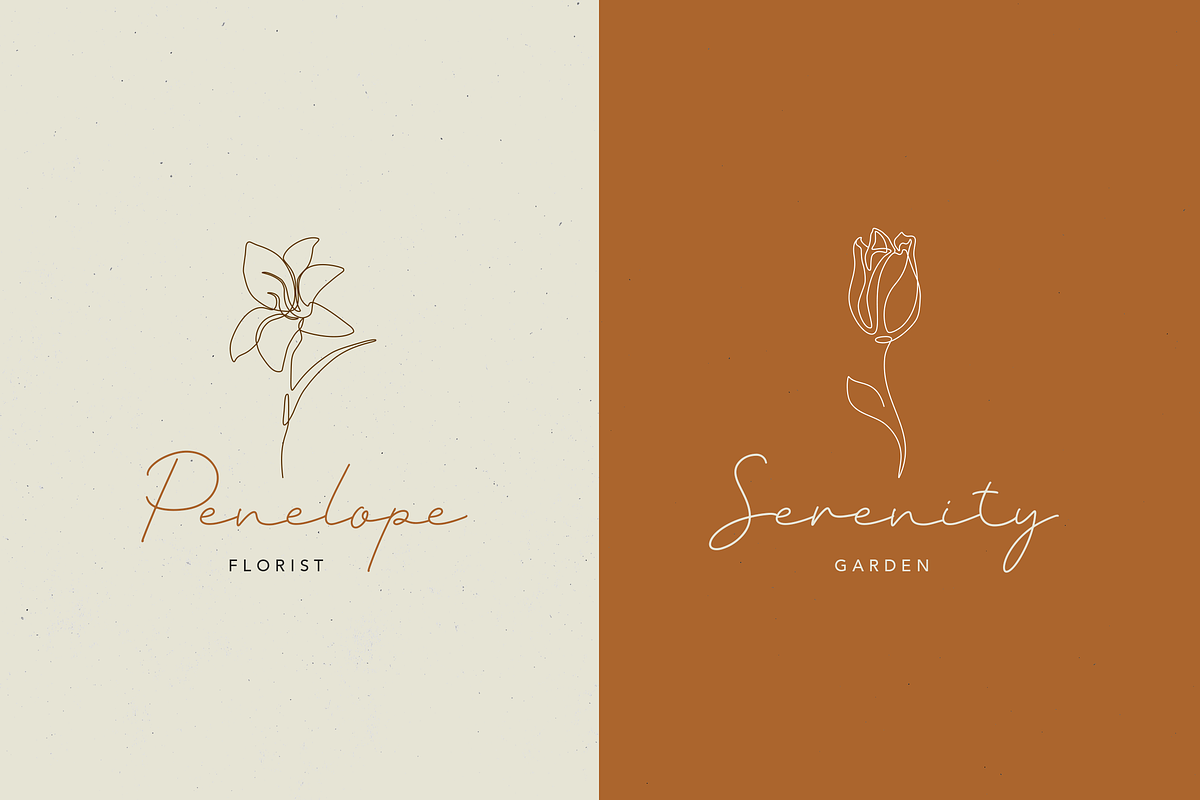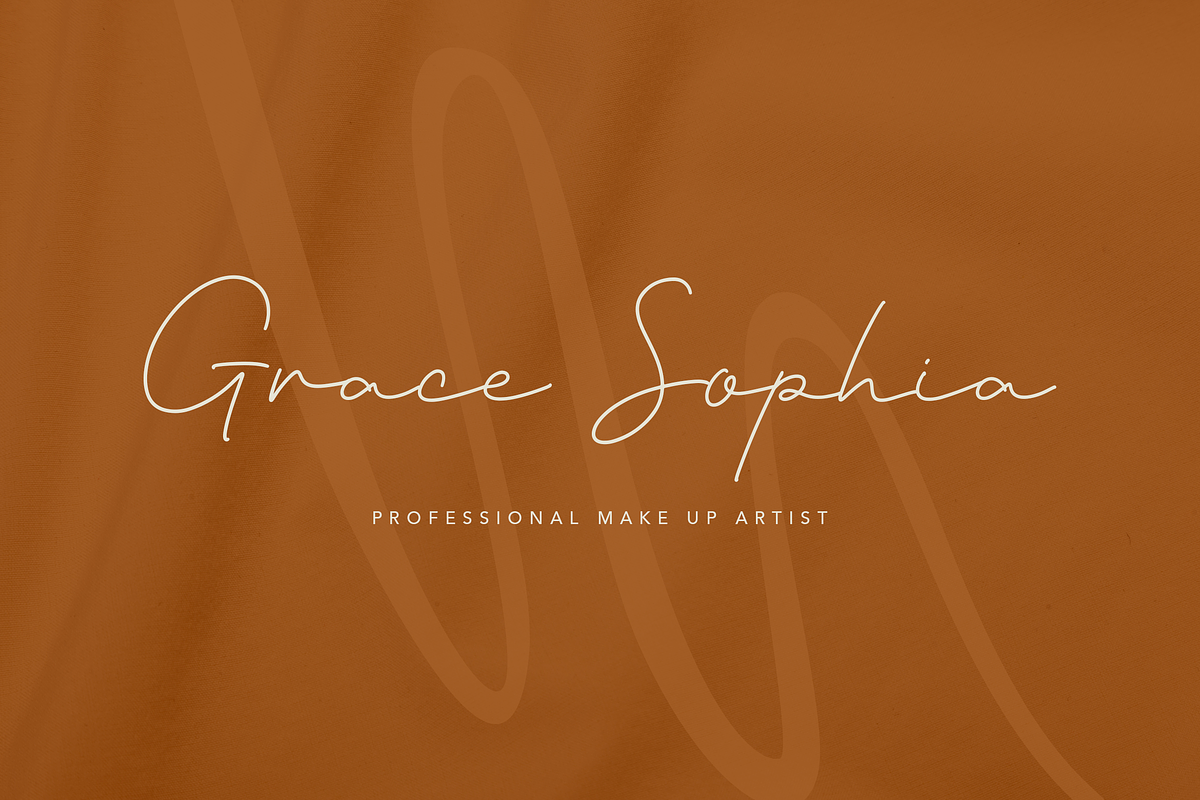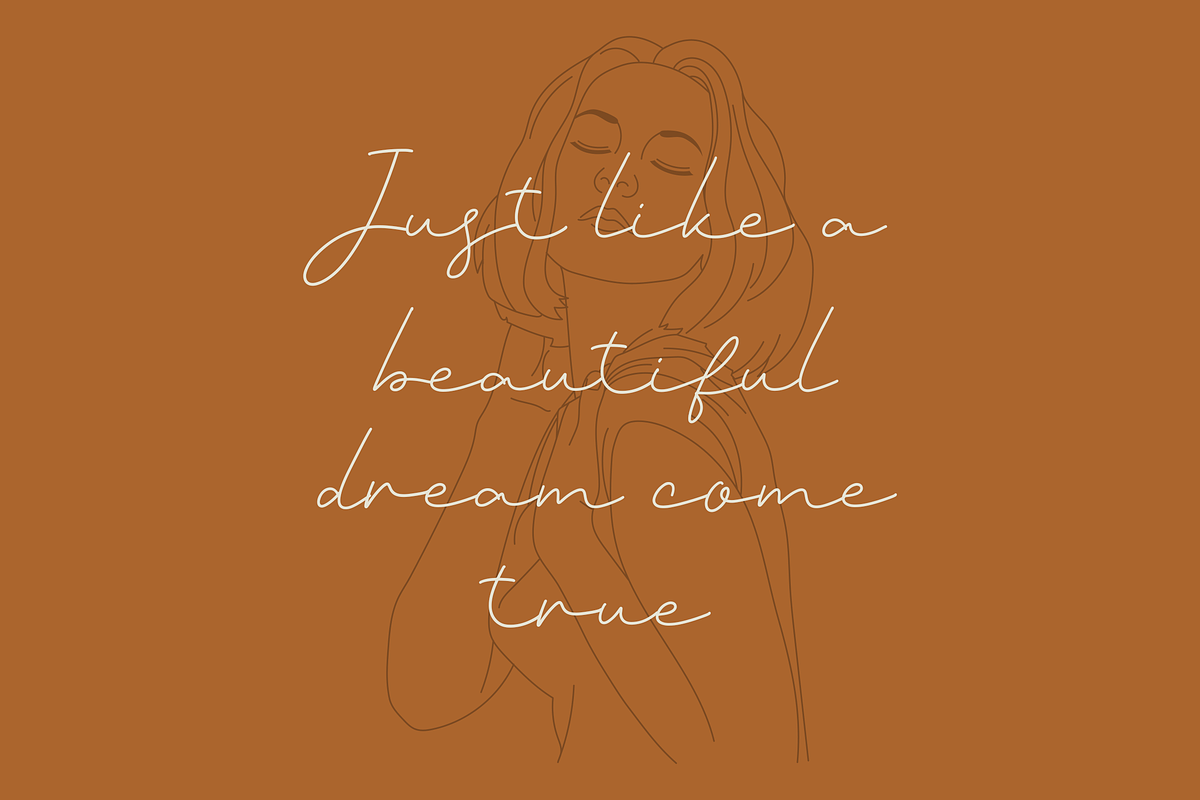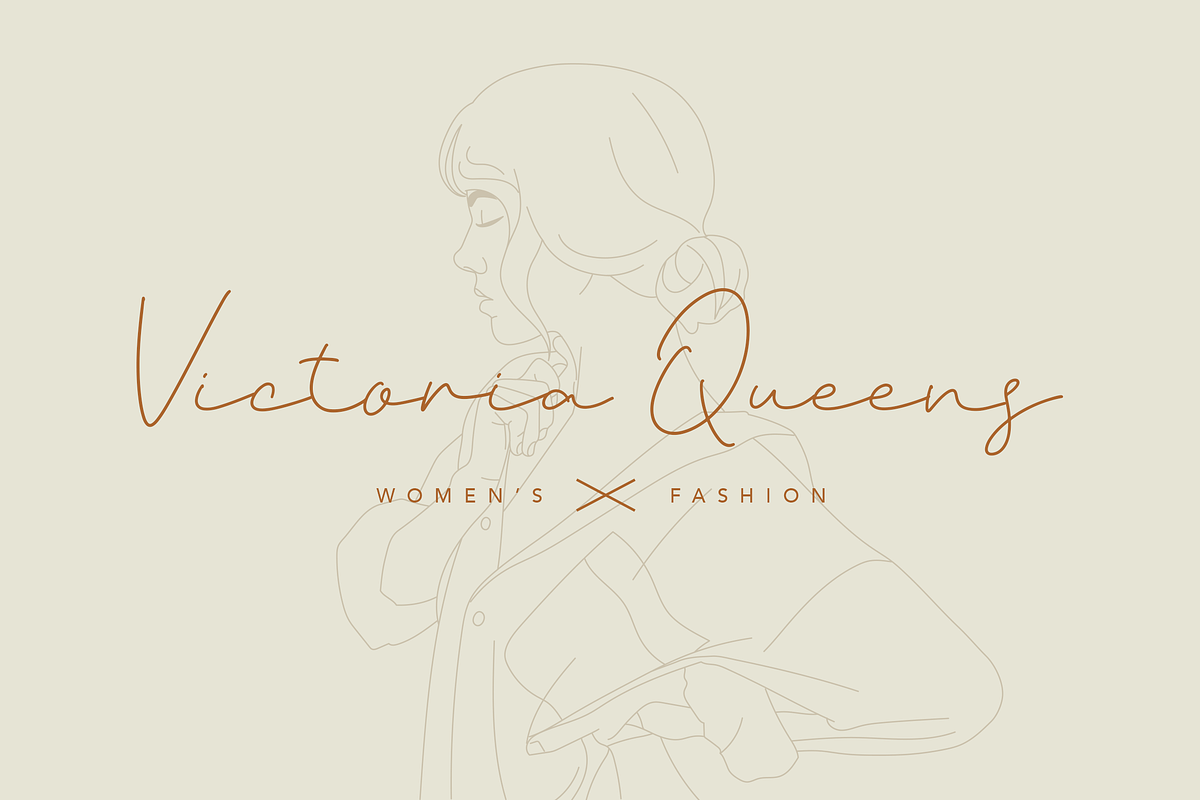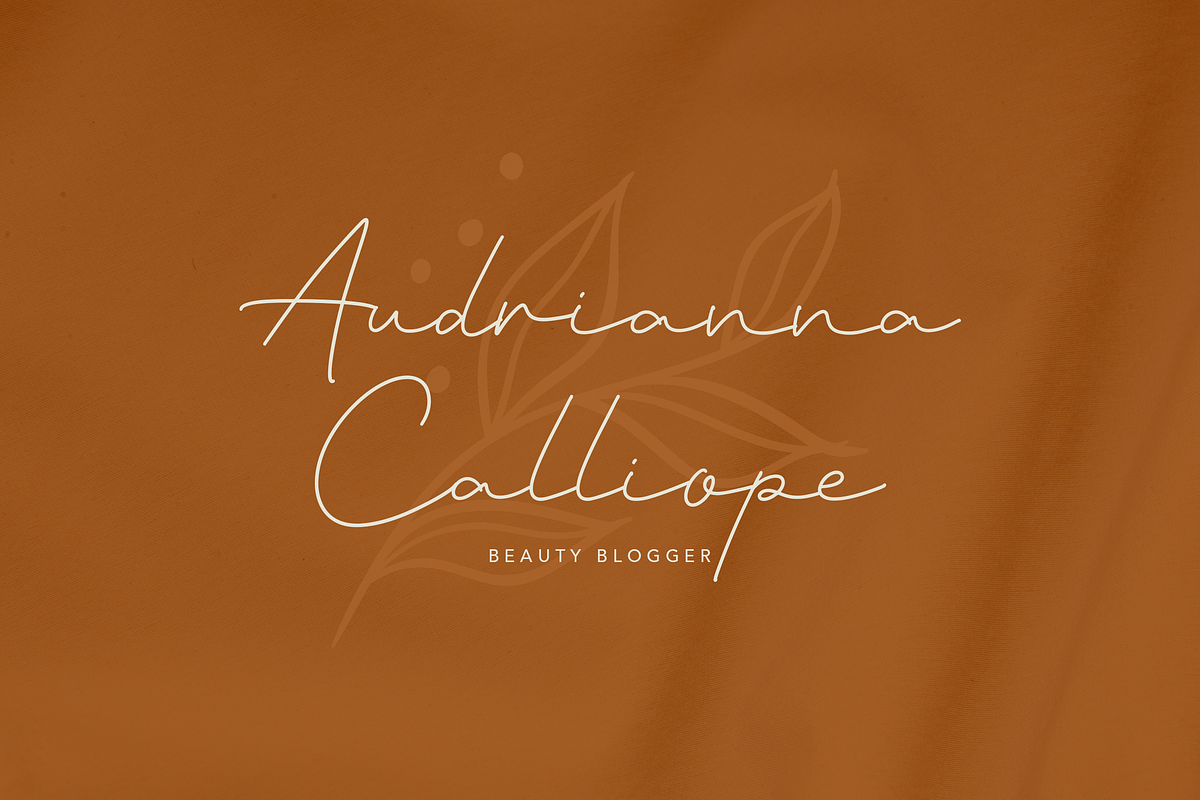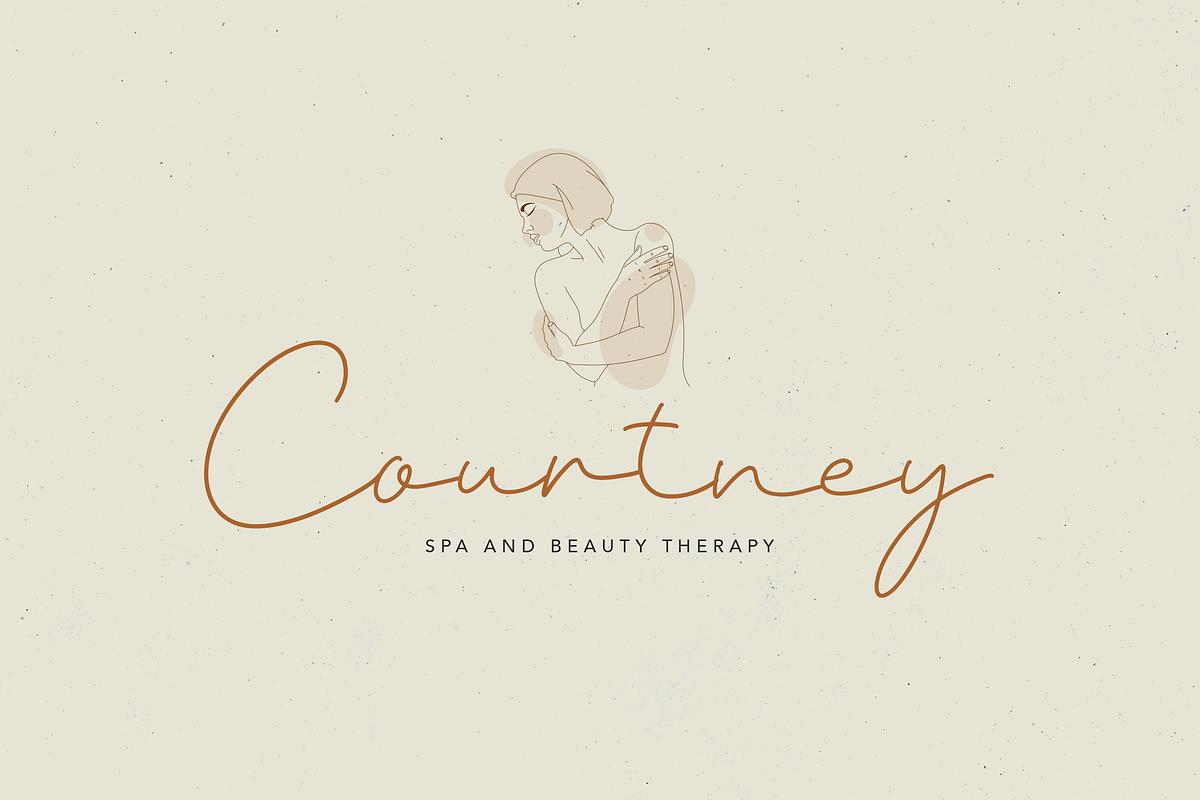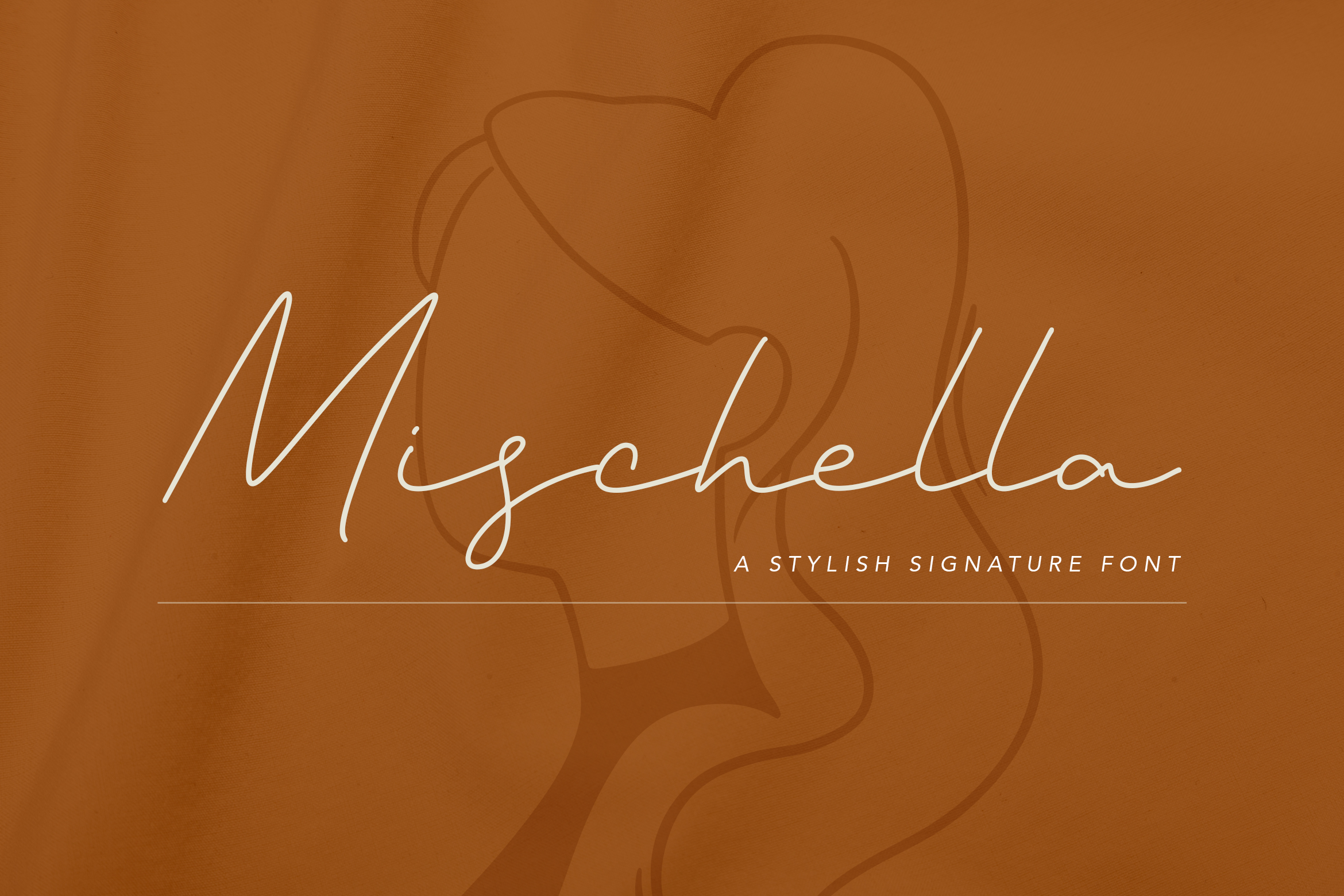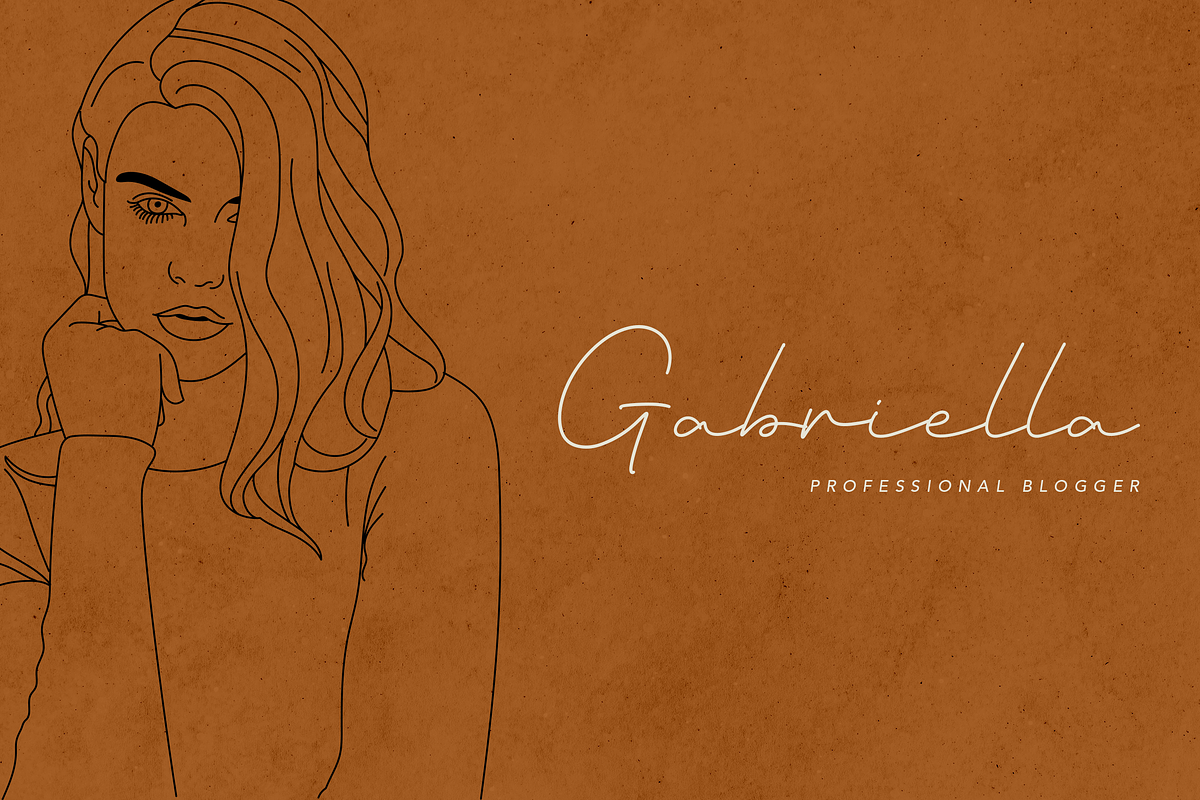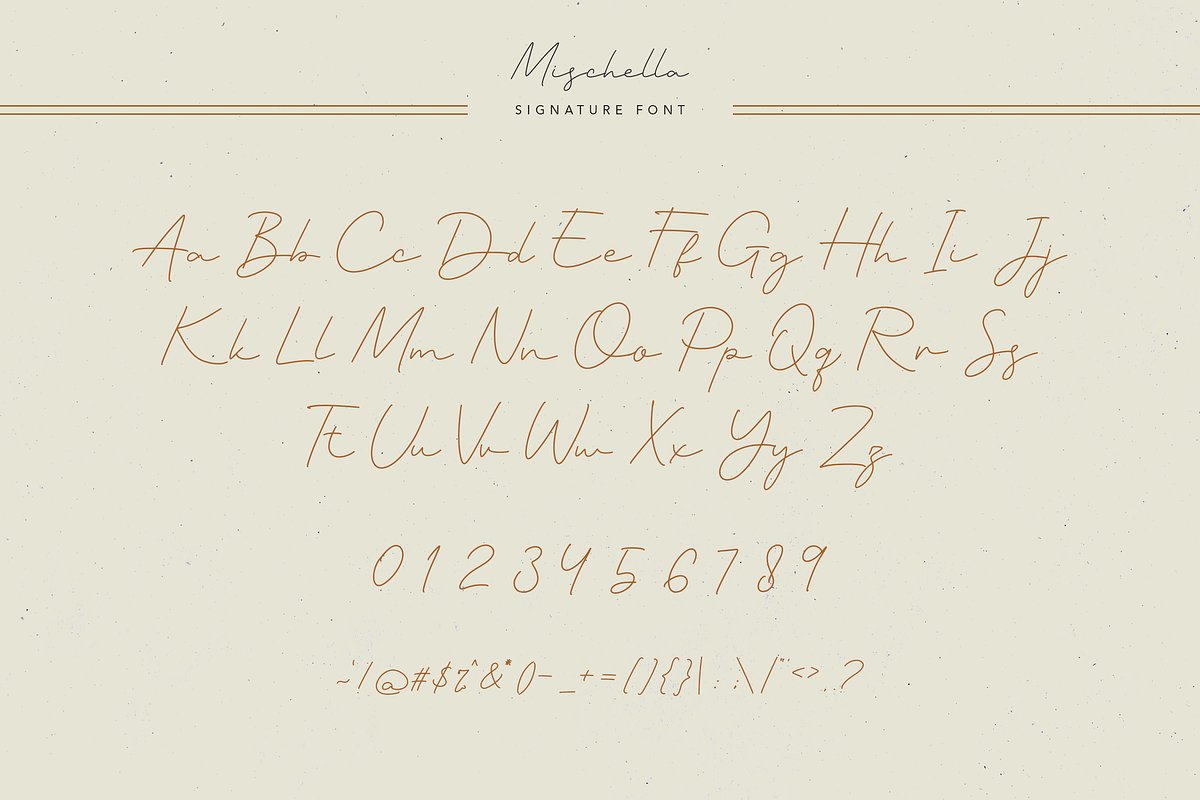
Mischella Stylish Signature Font
Introducing our new font. Mischella Stylish Signature Font !!!
Mischella is a stylish signature font designed with an incredibly minimalist feel. It features smooth lines, gorgeous glyphs, and stunning styles. Mischella would perfect for a signature font, wedding invitation, social media posts, advertisements, quoted text, photography, fashion, boutique, and any beauty or feminine projects. It makes with a high level of legibility. It's also a perfect fit for a beauty-themed - or a stylish text overlay to any background image.
- Uppercase & Lowercase letters
- Numbering